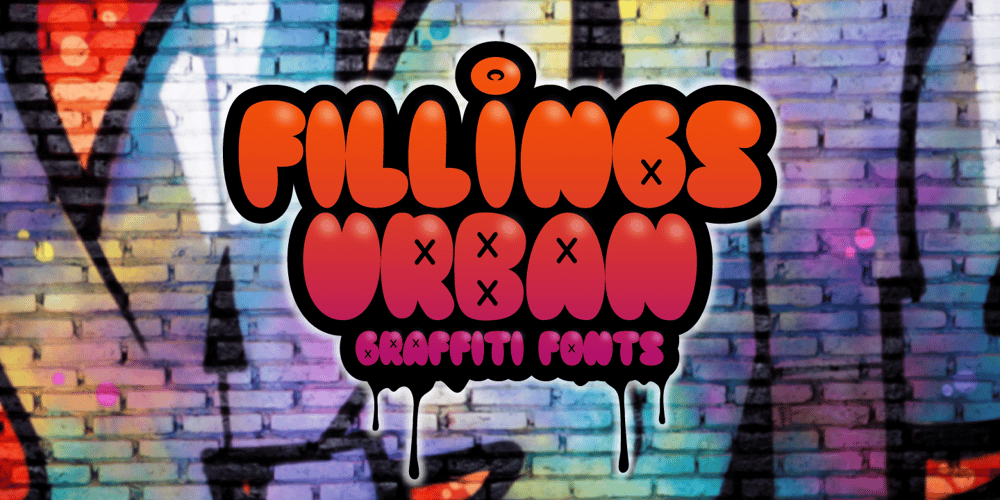
Fillings Urban Font Family was designed by Prio Nurokhim Aji and published by Prioritype. Fillings Urban contains 2 styles and family package options. The graffiti style that is favored by young people. Comes in 2 styles (Regular & Outline). Can be applied to clothing design, crafts, posters, hip hop music, children’s book covers, comics, cartoons etc. See some of the previews above for reference.Features:-Uppercase-Numeral-Punctuation-Multilingual-PUA Encoded-Opentype Features